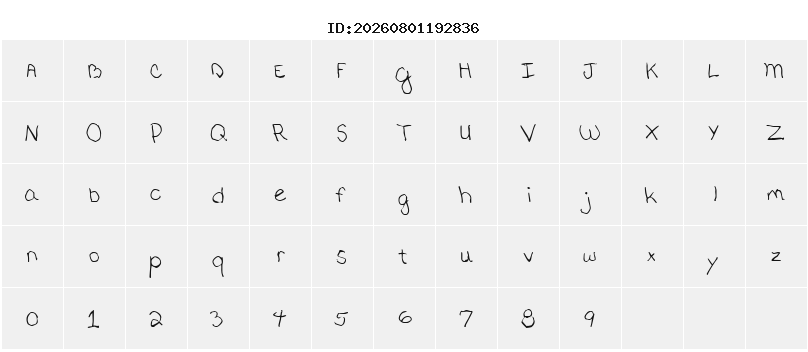
• Font Name: LD Print 4
• Full Font Name: LD Print 4
About LD Print 4.ttf
LD Print 4.ttf is a modern, elegant sans-serif font designed for ultimate readability and visual harmony. Perfect for branding, headlines, web design, and print materials.